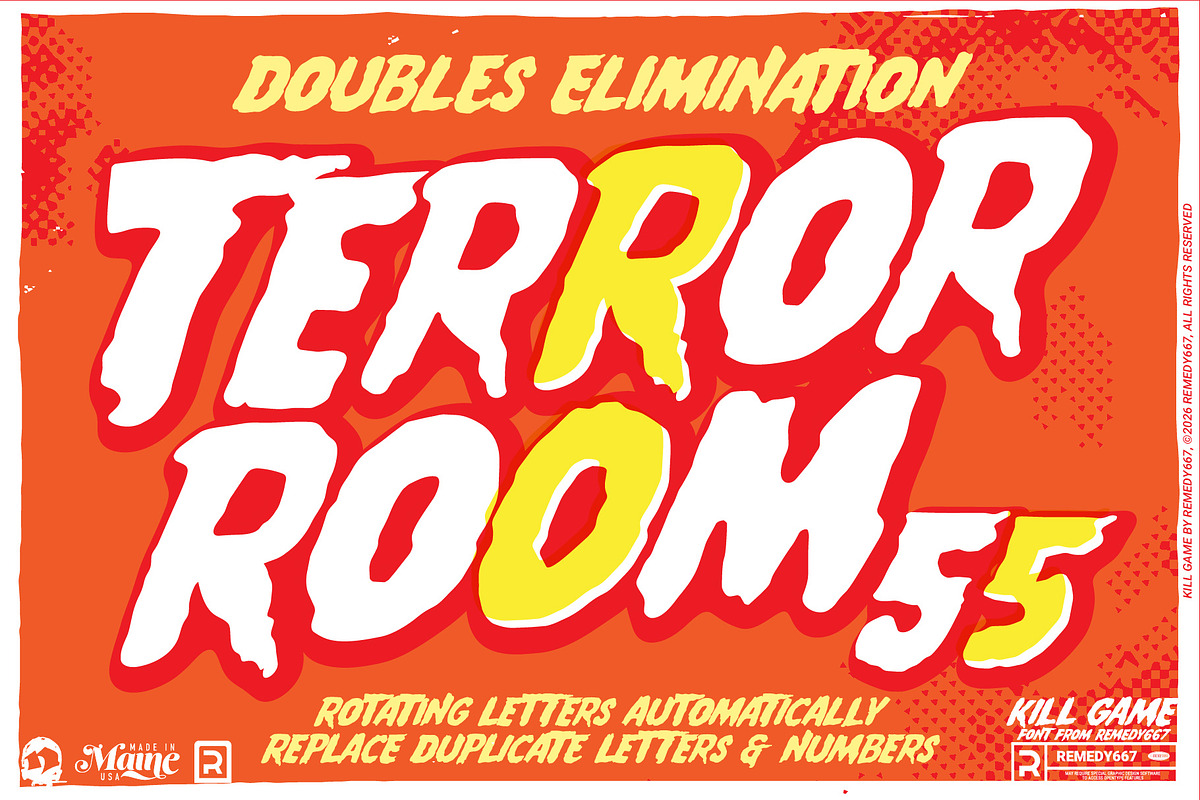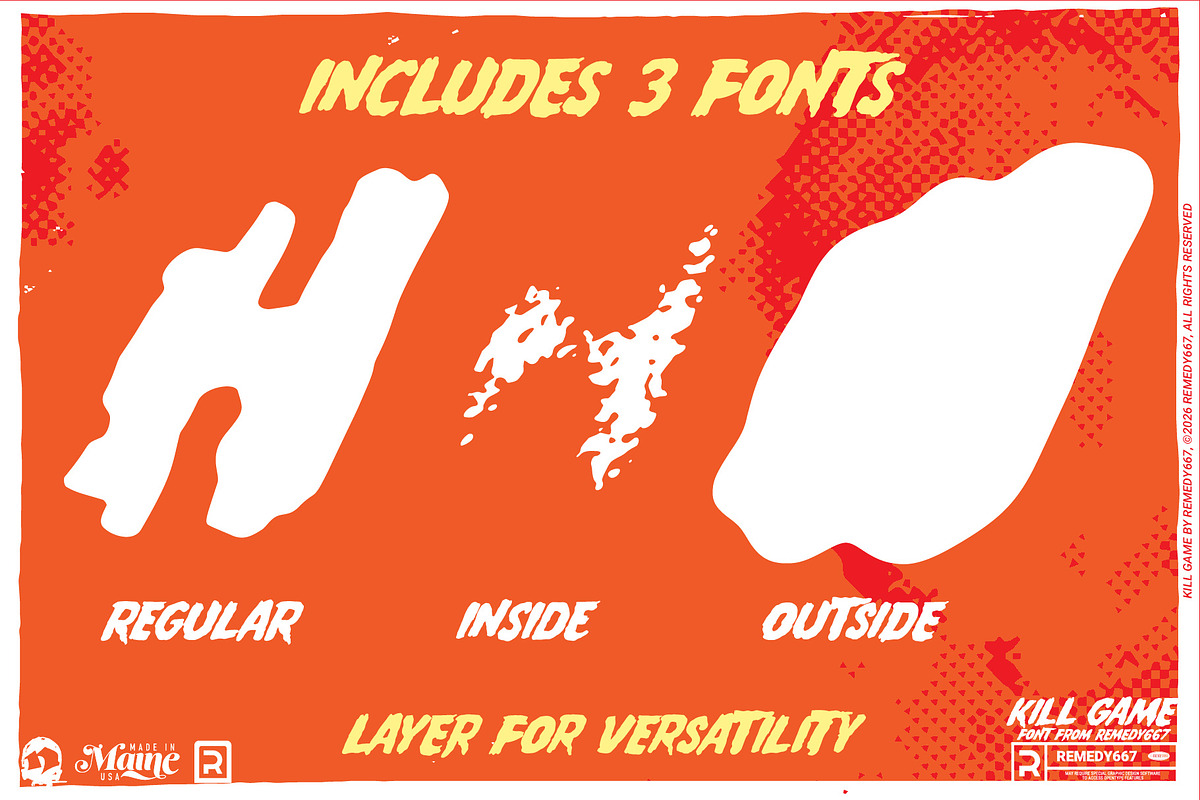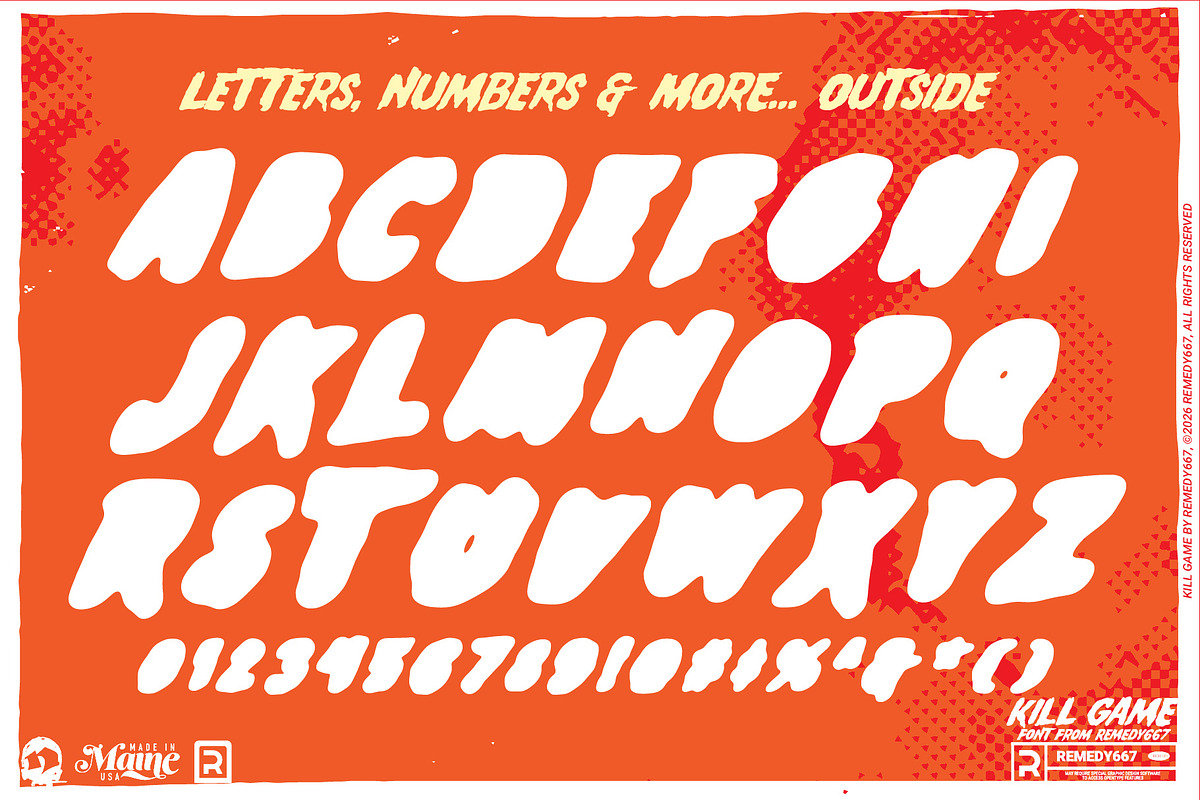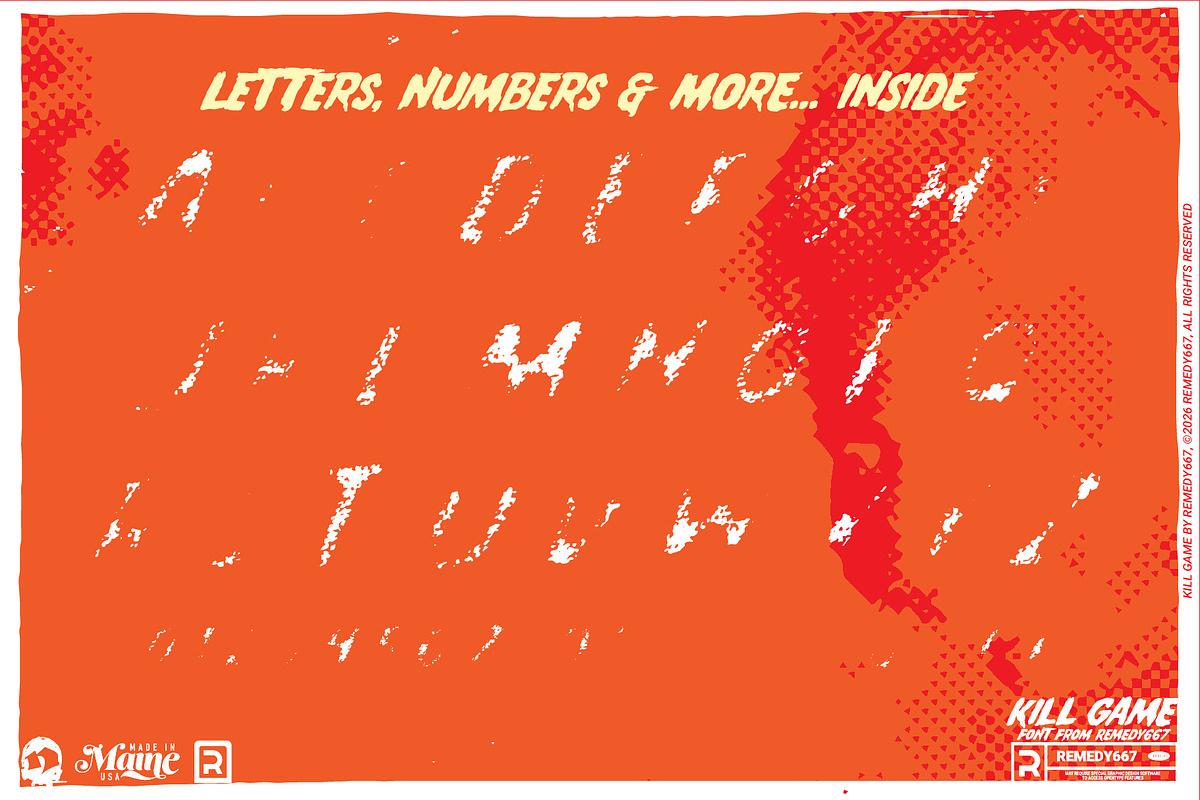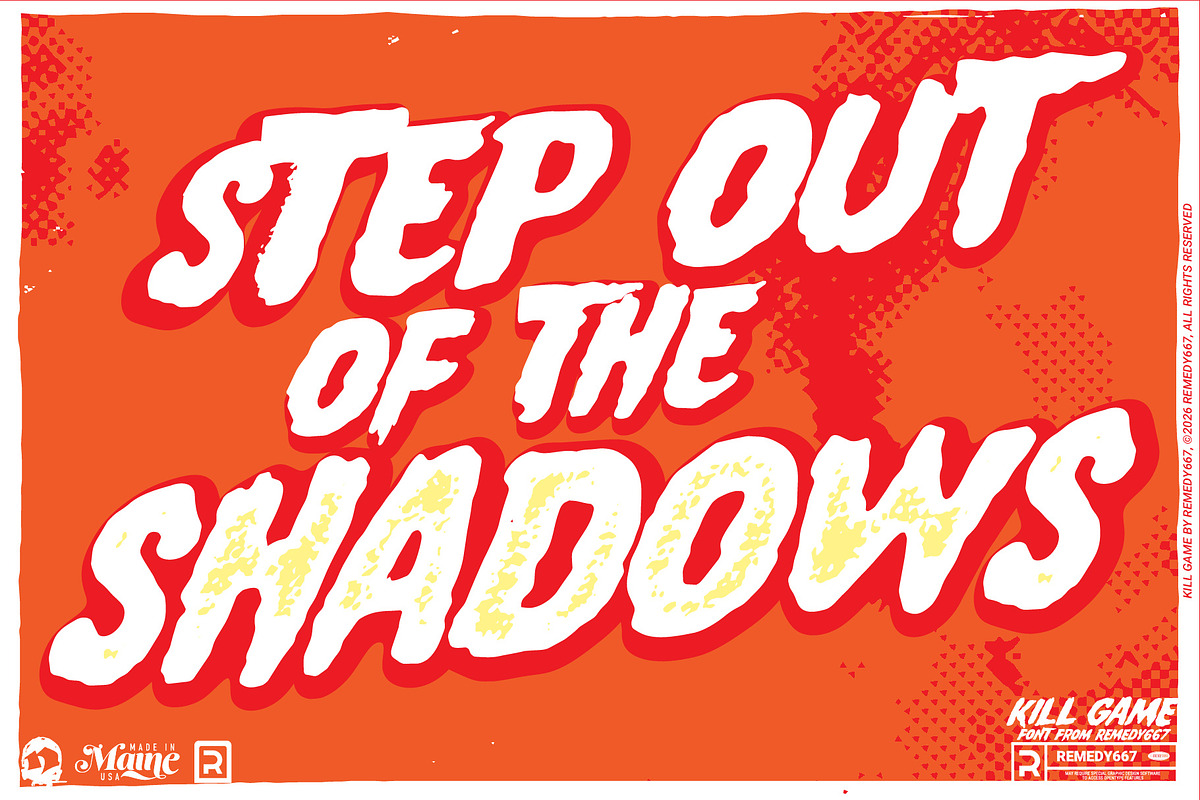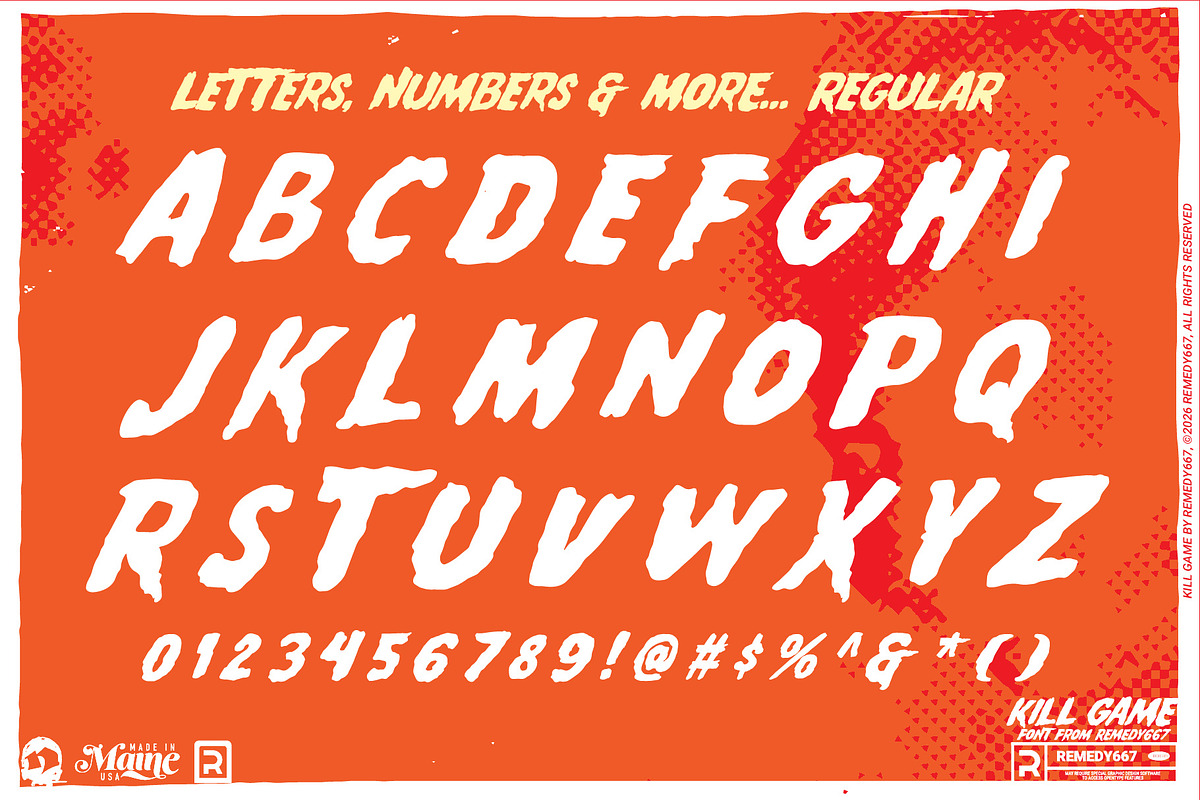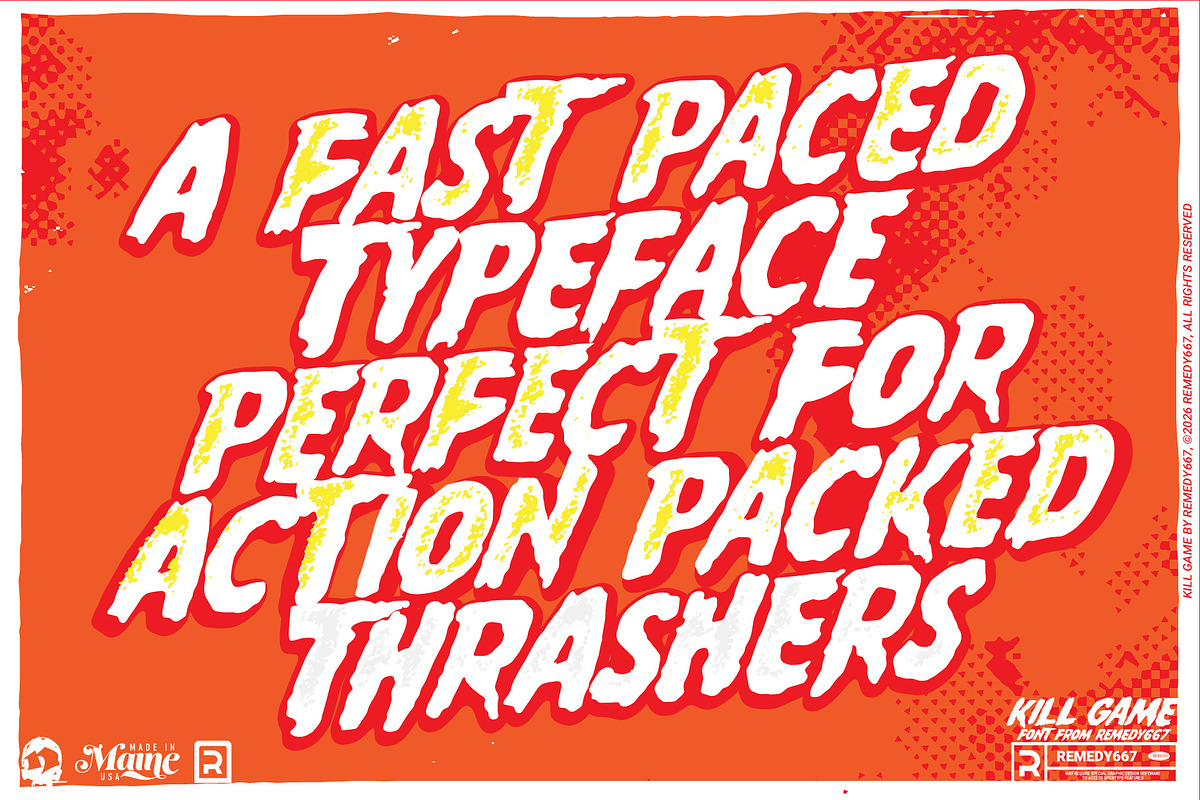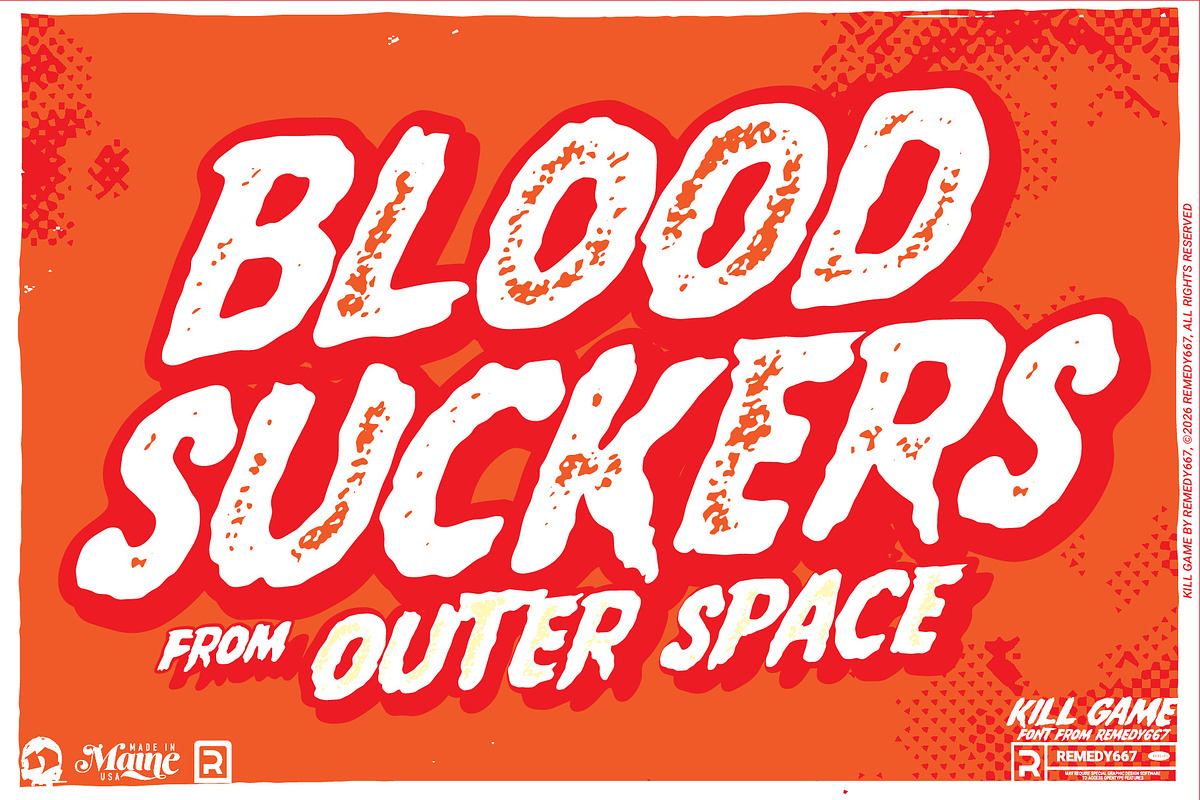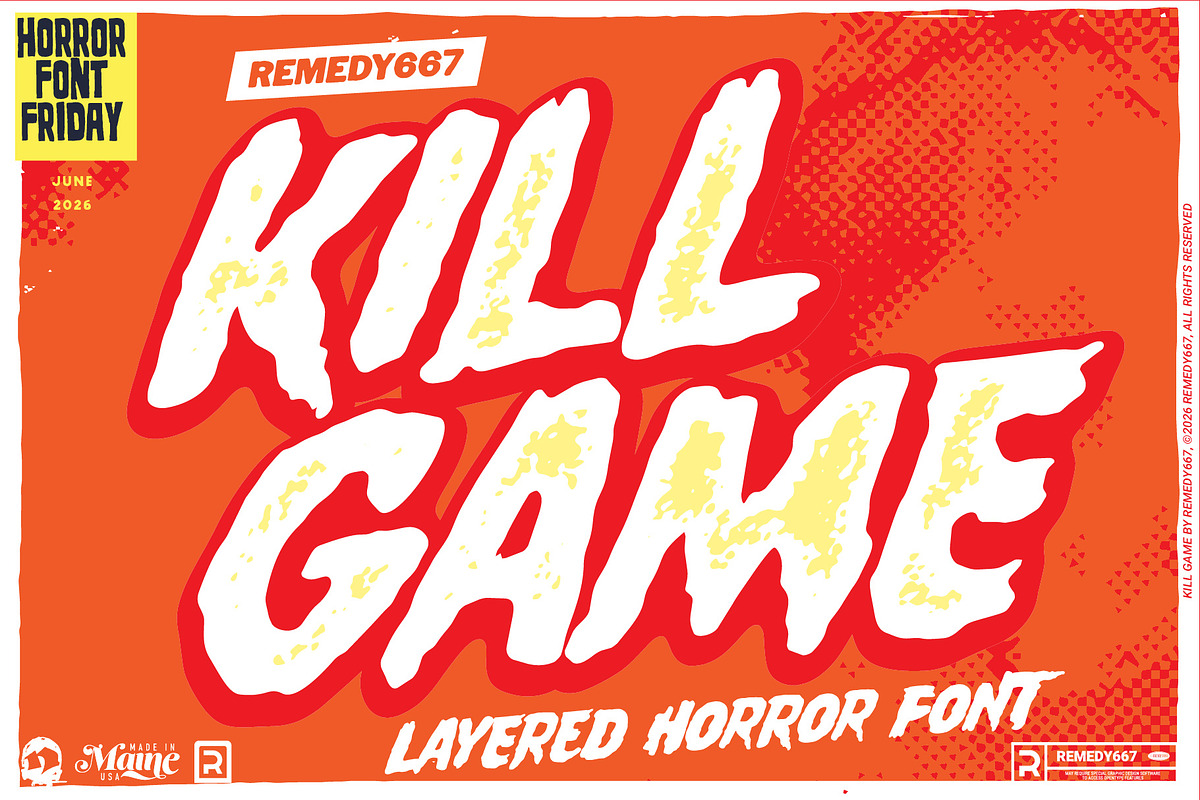
Kill Game
Kill Game storms onto the scene inspired by the lettering from the press book for The Name of the Game is Kill (1968). Bold, brash, and impossible to ignore, Kill Game delivers the kind of visual punch that lures unsuspecting moviegoers into theaters and drive-ins like a siren song.
Designed for fast-impact titles, punchy subheadings, and attention-grabbing graphics… Kill Game thrives where beige goes to die. Its rugged forms demand to be noticed, while layered styles and rotating characters add depth and variety that keep your headlines feeling fresh.
Inspired by vintage 1960s lettering
Three layerable font styles for dramatic custom effects
Rotating characters for natural variation and visual interest
Multilingual support for worldwide mayhem